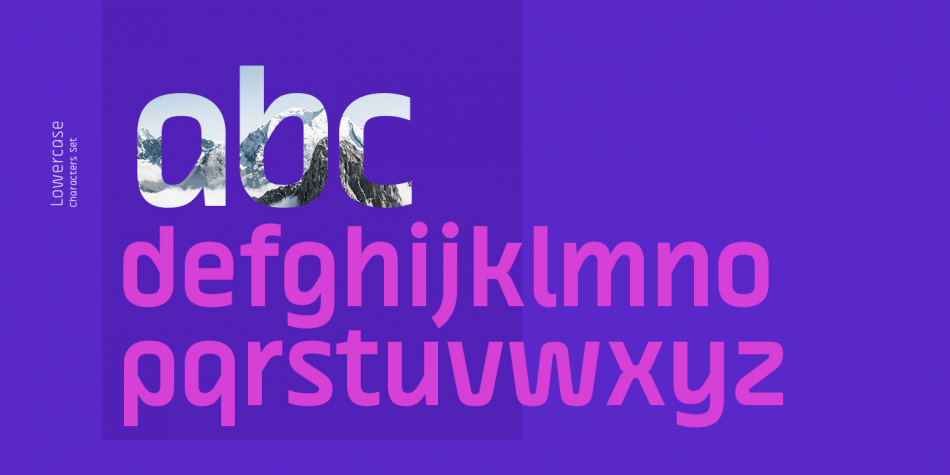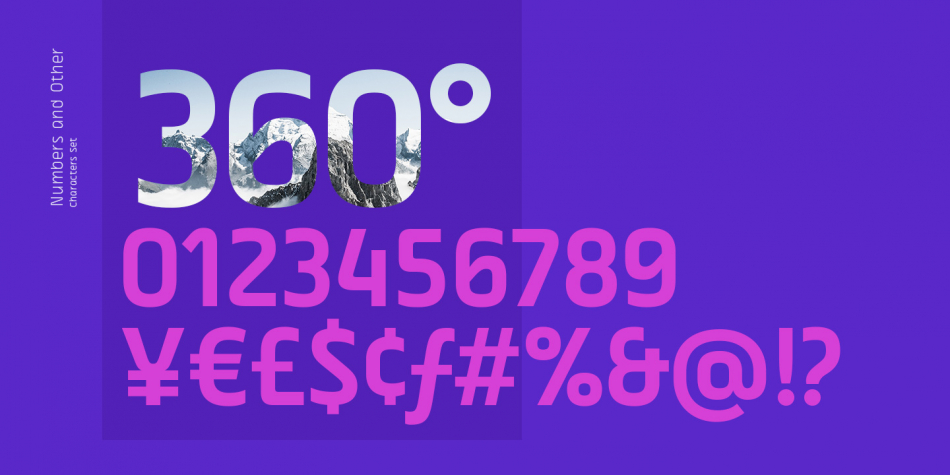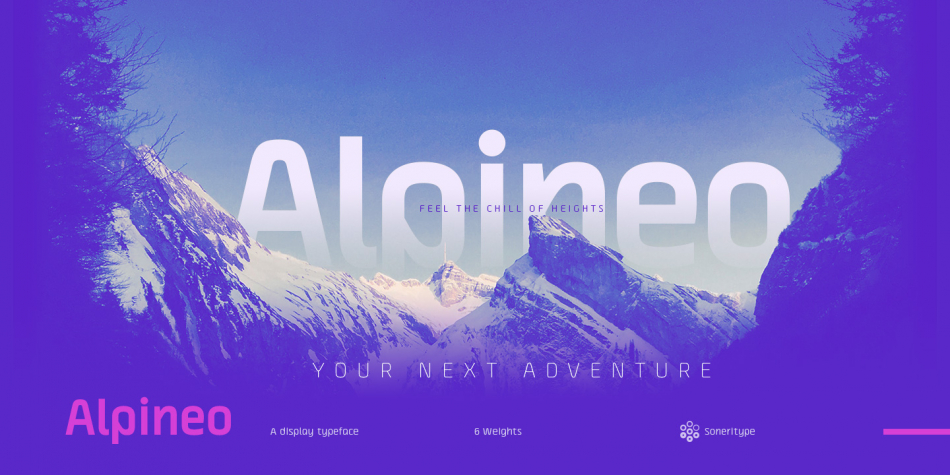
Alpineo Font Family
Alpineo is a display type family, optical mono linear and a bit squarish in nature. It has a distinct stroke joint style, which is a prominent feature of its design.
It is designed to be a little eye-catching yet legible. It has clear and distinguishable letterforms, which helps to elaborate and emphasize the message. It is graphically strong and commands viewer’s attention. The overall appearance of type is suitable in setting it as logotype, punchline, title, headline, etc.